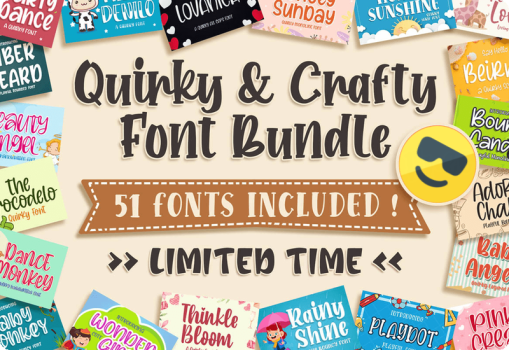
A Treasure Trove of Fonts for Every Creative Project
What’s Inside the Bundle?
This bundle includes a diverse mix of handwritten, script, and display fonts from Blankids Studio, known for their playful and professional typefaces. Here’s a glimpse of what you’ll get:
- Handwritten & Script Fonts: Perfect for invitations, greeting cards, and branding materials. Fonts like Pink Snake, Lucky Cats, Hardela, and Takaria offer elegant strokes and natural flow.
- Display Fonts: Ideal for headlines, posters, and packaging. Fonts such as Rainy Shine, Lemon Squash, Bouncy Candle, and Spicy Burger bring boldness and character.
- Multilingual Fonts: Includes fonts with international flair like Feelista, Samberia, and Cincha, supporting various languages and scripts.
Versatility for Every Design Style
From playful and quirky to elegant and refined, the fonts in this bundle cover a wide spectrum of design needs:
- Crafting Projects: Add personality to scrapbooks, DIY cards, and handmade gifts.
- Branding: Build a unique identity with fonts that reflect your brand’s voice.
- Social Media & Blogging: Create eye-catching graphics and headers that draw attention.
- Print & Digital Design: Use in brochures, flyers, websites, and apps.
Trusted Quality from Blankids Studio
All fonts are professionally designed by Blankids Studio, a respected name in the typography world. Their fonts are known for clean lines, balanced spacing, and creative flair, making them suitable for both personal and professional use.